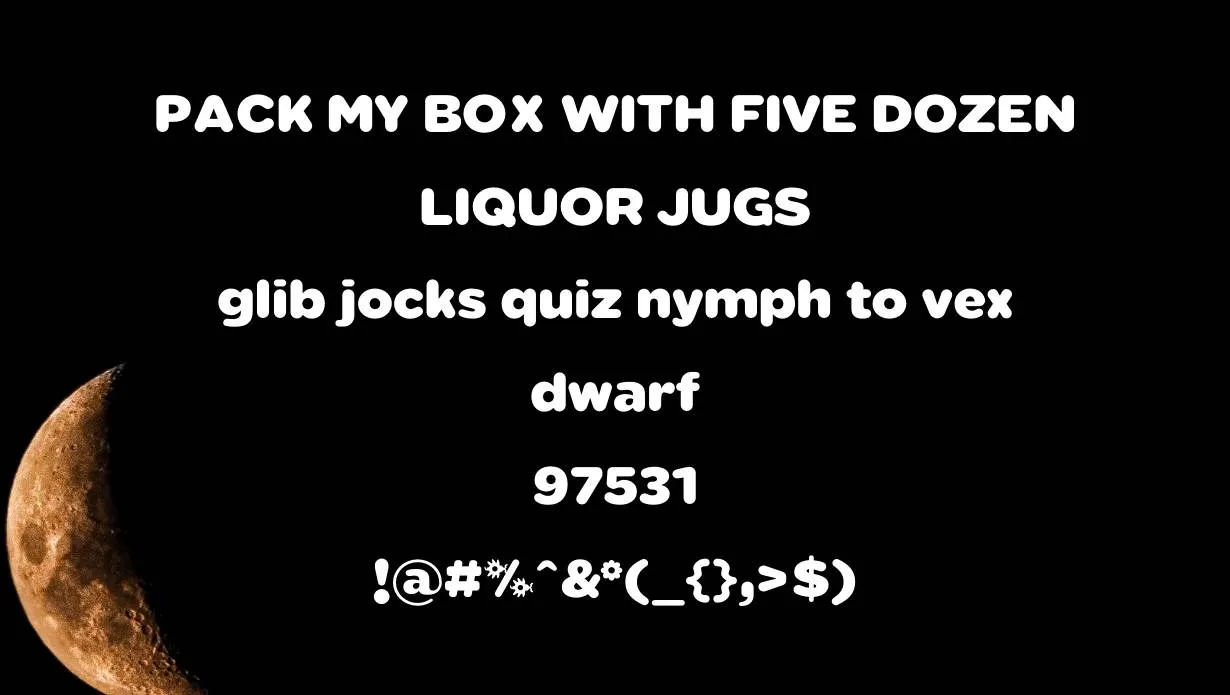
Sabandija Font is a display typeface that was created in the early part of the 20th century. The designer of this font is deFharo. This Font has a very distinctive look, with its high contrast between the thick and thin strokes, and its unusual ‘s’ character.
The typeface has a matching personality with other typefaces and can provide cool performance with the pairing of grand font. This font was first released in 1901 by the Chilean-type foundry Cia Ltda. It was later revived by Argentinean-type designer Raul Garcia Papa in 2001.
This font style is best for use in copy-paste function. Garcia Papa made some minor changes to the character set and added a bold weight. The Sabandija family now includes three weights: regular, bold, and black.
Who Used Sabandija Font?
The Sabandija Font family is best suited for headlines, displays, and short texts. It can also be used for logos, posters, and other creative work. The font glyph has a very square and condensed look, making it great for space-saving designs.
The Font family is a great choice for any project that needs a touch of vintage charm. This font is also commonly used in Spain. The letters are very thin and have long strokes, making them difficult to read in smaller sizes.
This typeface and space jam font has many matching personalities and the same characteristics because of their same height and large characters. This Microsoft Word software is also useful for making formal or informal documents.
Sabandija Font Family Appearance
| Name | Sabandija Font |
| Designer | deFharo |
| Style | Display |
What type of glyphs does Sabandija Font have?
This font includes a full set of characters, as well as support for international languages. The font includes both uppercase and lowercase letters, as well as numbers and punctuation marks.
Can I use Sabandija Font in a logo?
Yes, Sabandija Font can be used in a logo. However, because the letters are so thin, it is important to use this font in a larger size so that it is legible.
Is Sabandija a good font to use?
The Font is a monospaced font that is commonly used for programming and coding purposes because it can be easily read and understood.